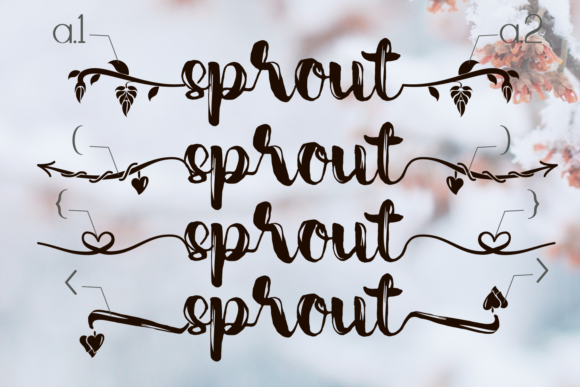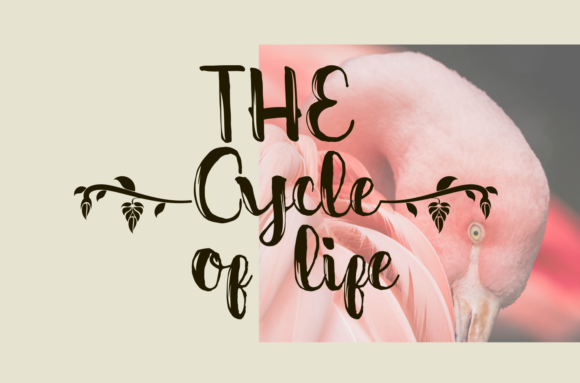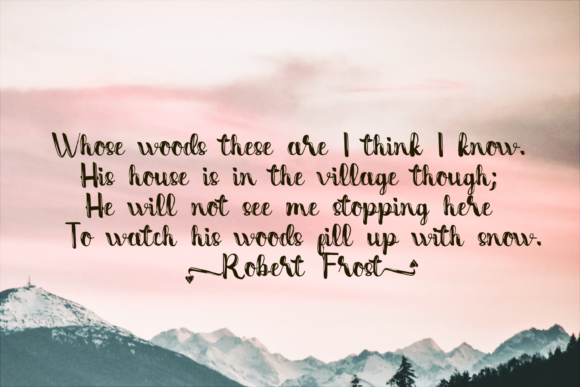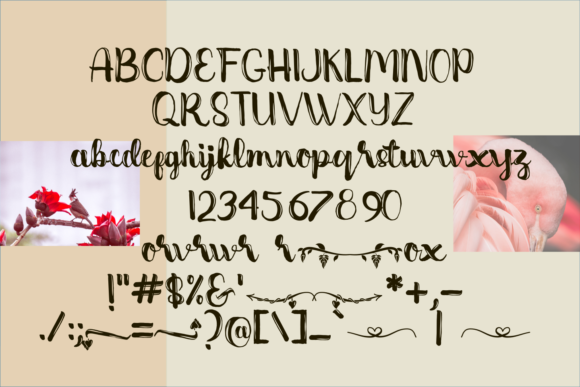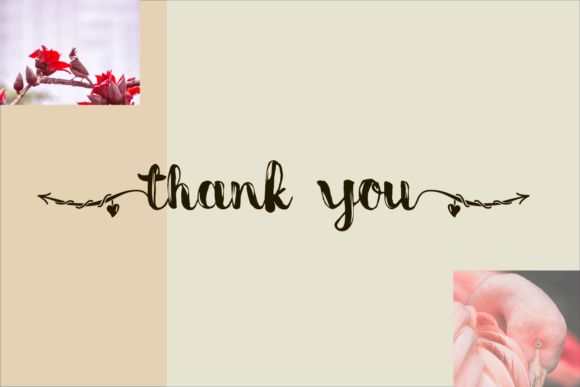
Introduction to Bine Font
Bine is an authentic and bold handwritten font that’s great for adding that organic feel to your next design project.
Key Features of Bine Font